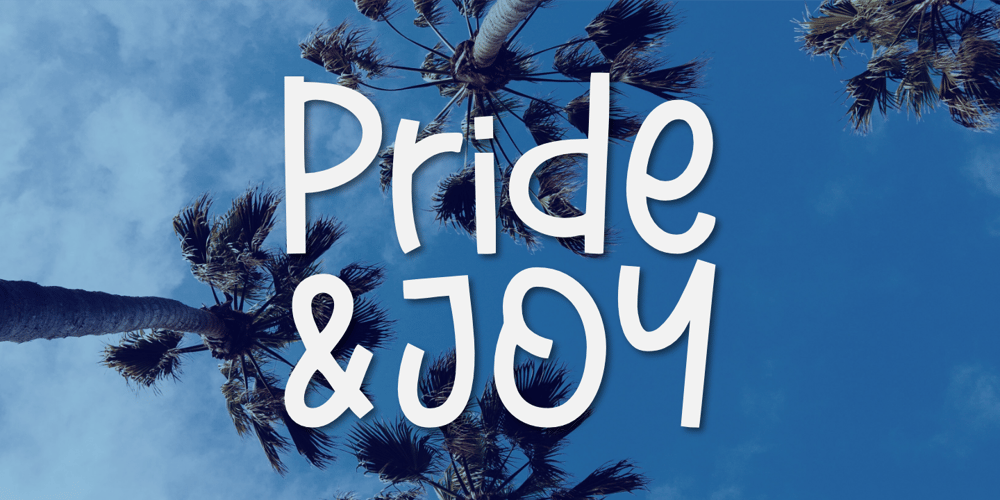
Pride And Joy
Pride And Joy font
Pride And Joy Font Family was designed by Aldy Sidik and published by Epiclinez. Pride And Joy contains 1 styles and family package options. Pride And Joy is a casual and fun handwritten font. It’s readable and it has a playful feel to it at the same time. Get inspired by its simplistic charm and use it to brighten up any creative projects.So what’s included: Basic Latin A-Z & a-z. Numbers, symbols, and punctuations Multilingual Support. Accented Characters : ÀÁÂÃÄÅÆÇÈÉÊËÌÍÎÏÑÒÓÔÕÖØŒŠÙÚÛÜŸÝŽàáâãäåæçèéêëìíîïñòóôõöøœšùúûüýÿžß Thank you